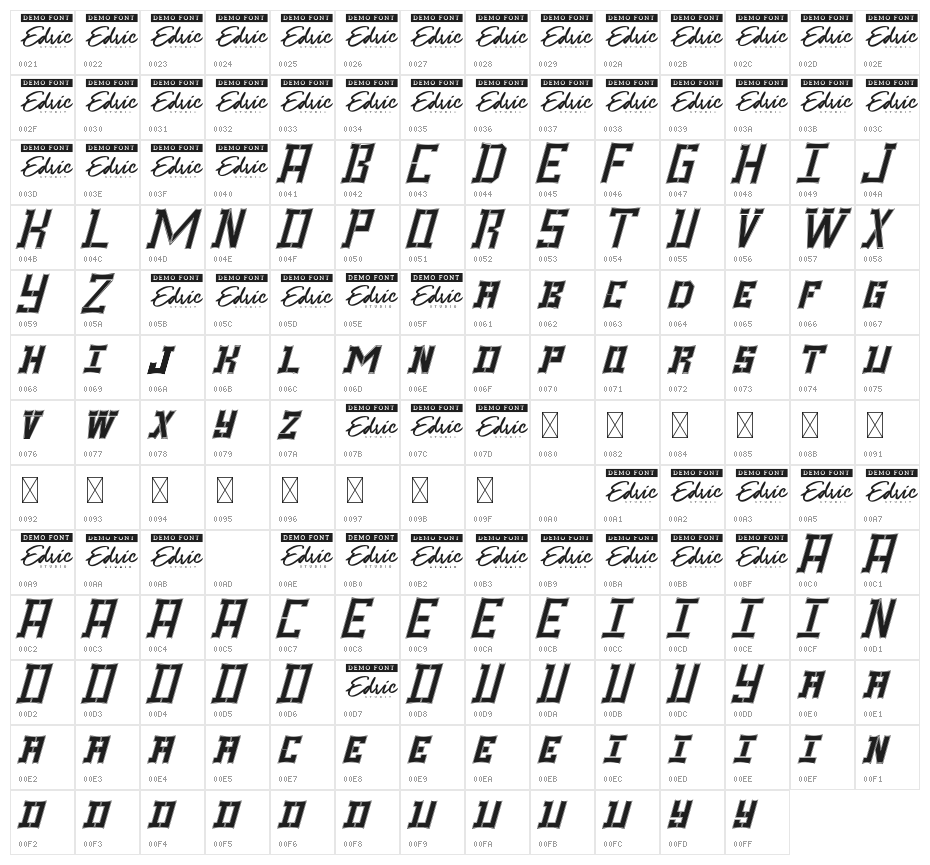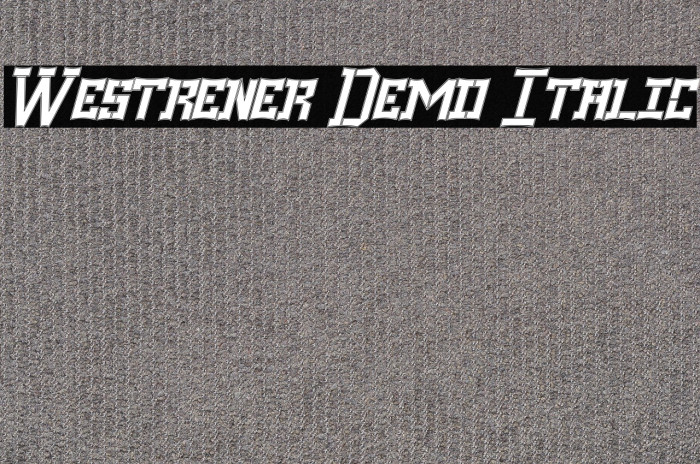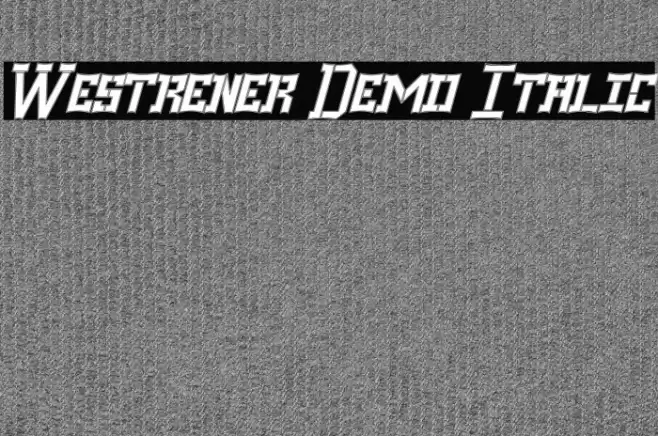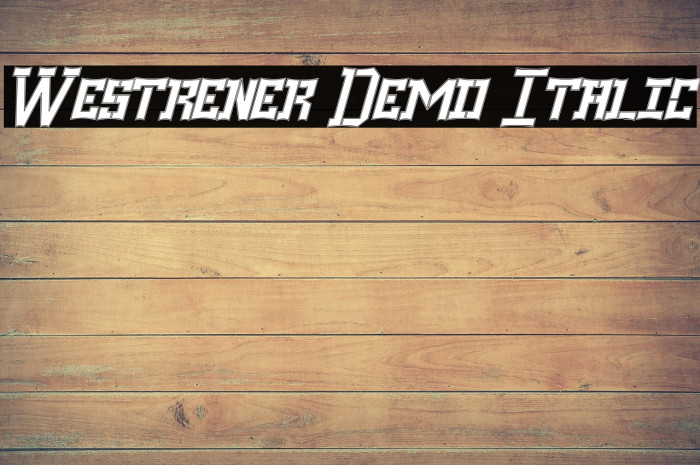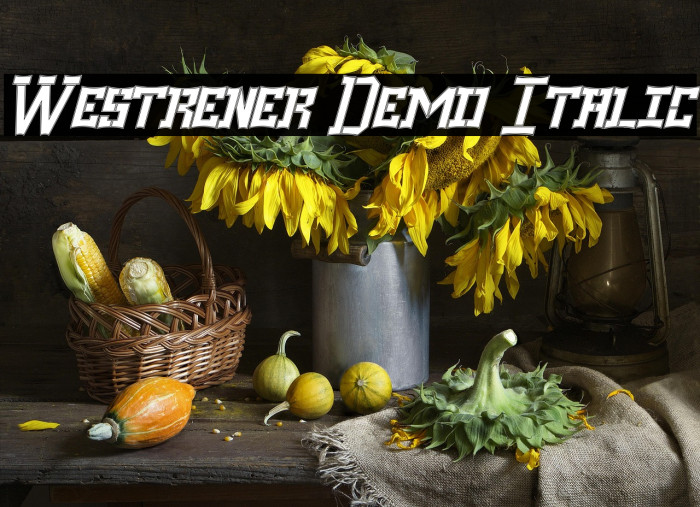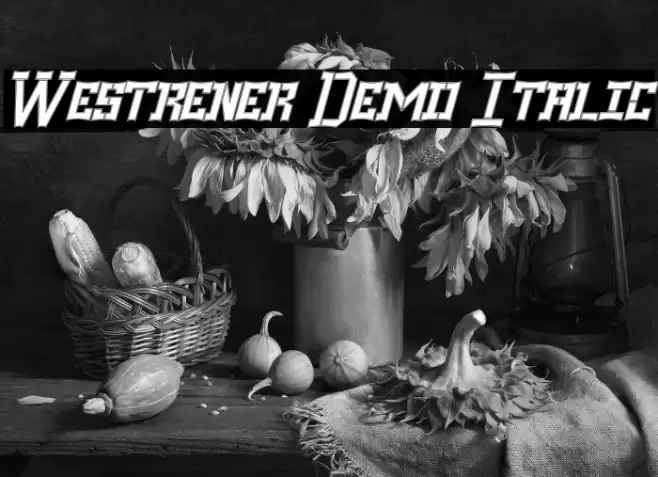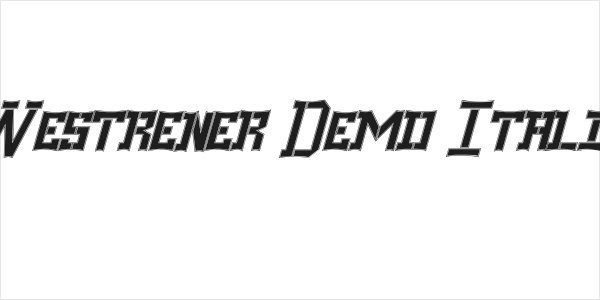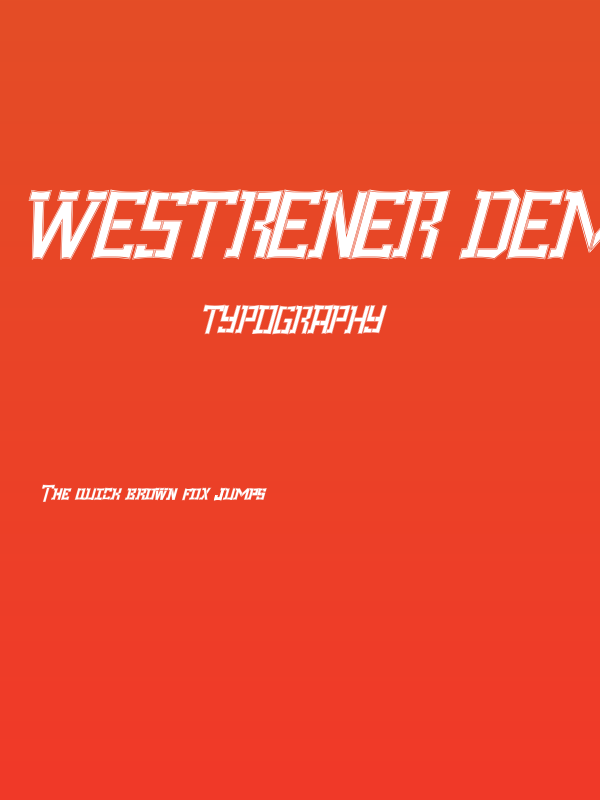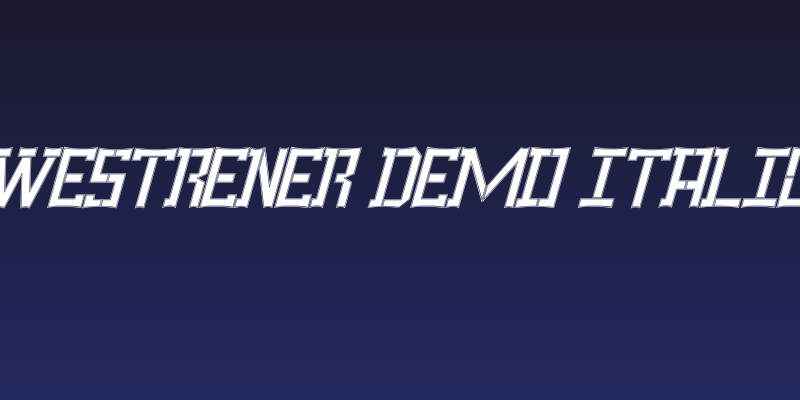
Westrener Demo Italic Font
Westrener Demo Italic Description
This font features a bold and dynamic style with a strong emphasis on angular and geometric shapes. The uppercase letters are particularly striking, with sharp edges and a sense of movement that suggests speed and modernity. The italic nature of the font adds a slanted, forward-leaning aspect, enhancing its energetic and contemporary feel. The lowercase letters maintain the same angular design, ensuring consistency throughout the typeface. The font's unique style is further emphasized by its high contrast between thick and thin strokes, giving it a dramatic and eye-catching appearance. This font is ideal for projects that require a bold statement or a modern, edgy look.
| Proposed Projects | Ideal for branding, sports team logos, posters, and any design needing a bold, modern touch. |